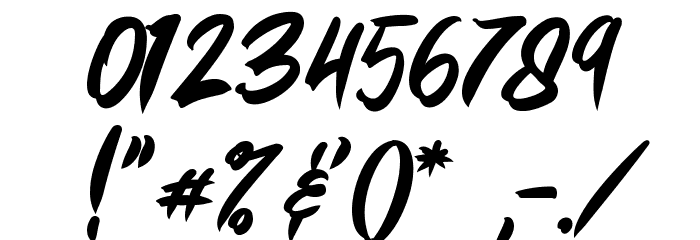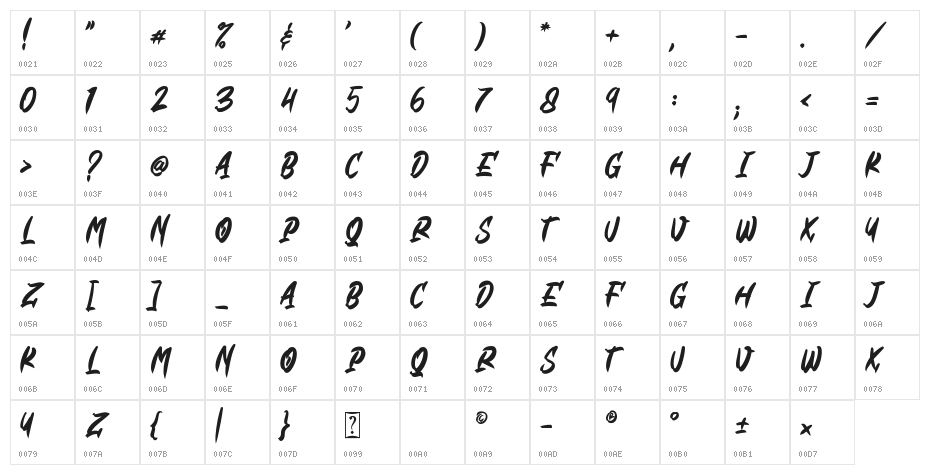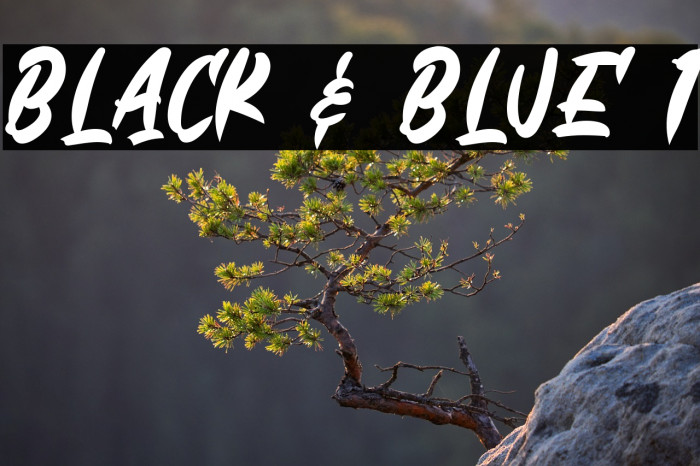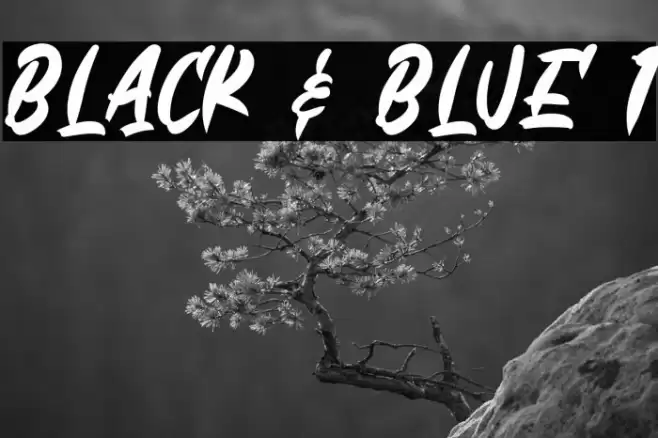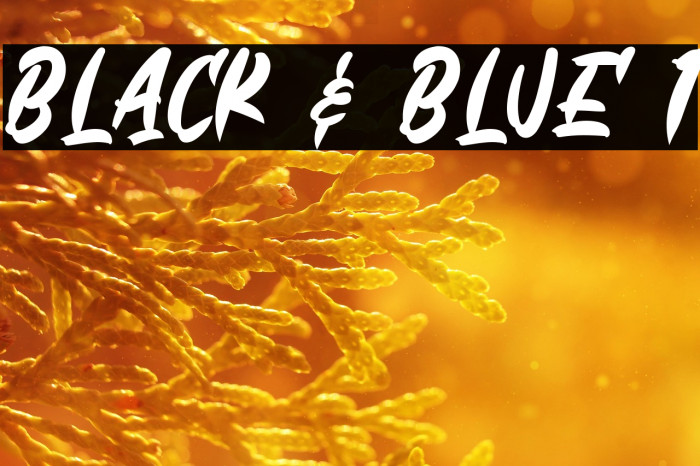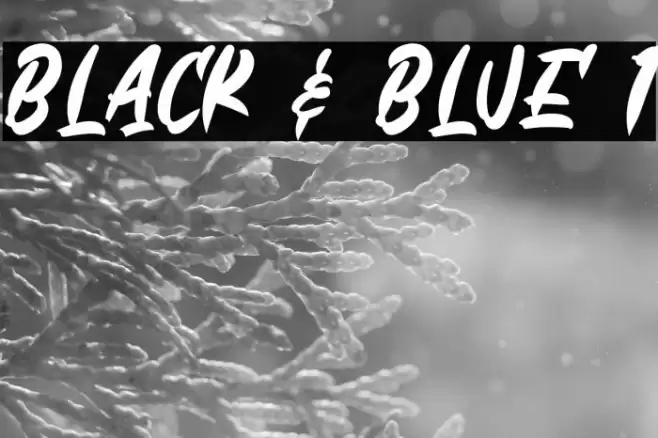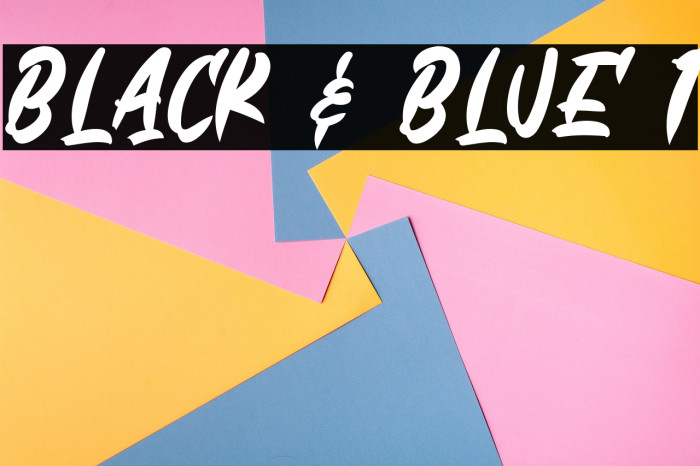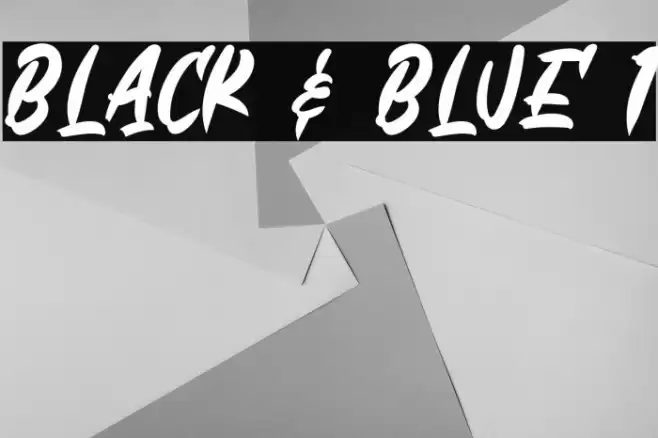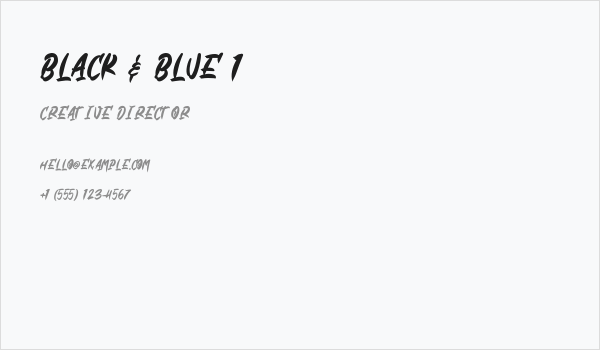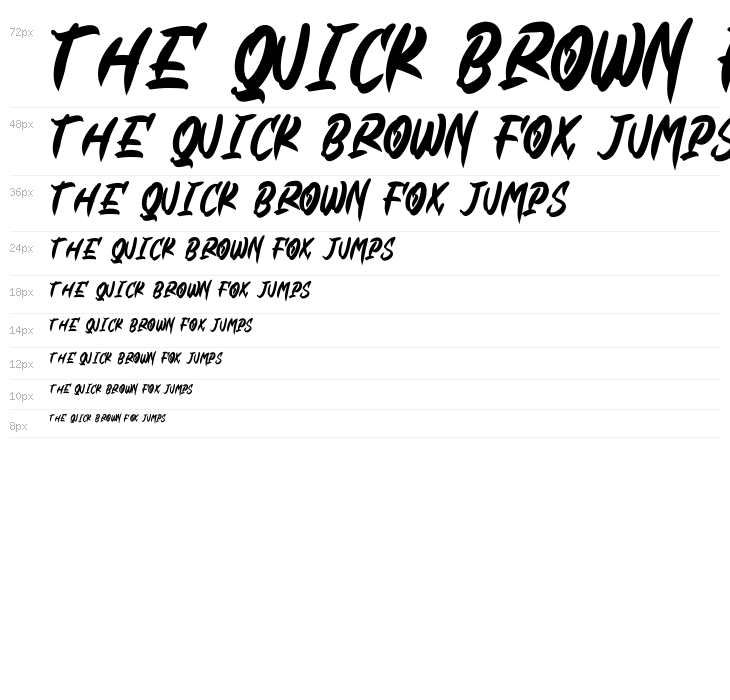
Black & Blue 1 Font
Black & Blue 1 Description
This font features a bold, energetic script style with a dynamic and flowing appearance. The letters are characterized by their thick, brush-like strokes that give a sense of movement and vitality. The uppercase and lowercase letters maintain a consistent style, with a slight slant that adds to the overall dynamic feel. The numbers and special characters are designed to match the lively aesthetic, ensuring a cohesive look across all glyphs. This font's boldness and expressive nature make it stand out, ideal for projects that require a strong visual impact.